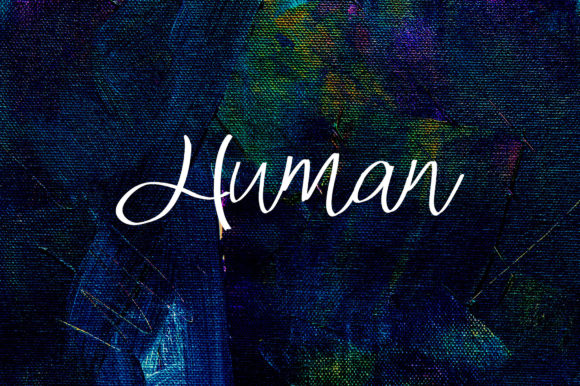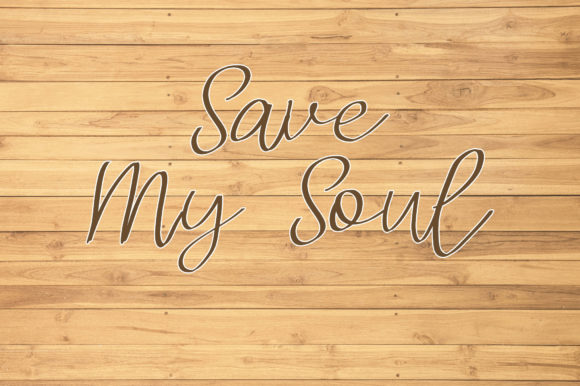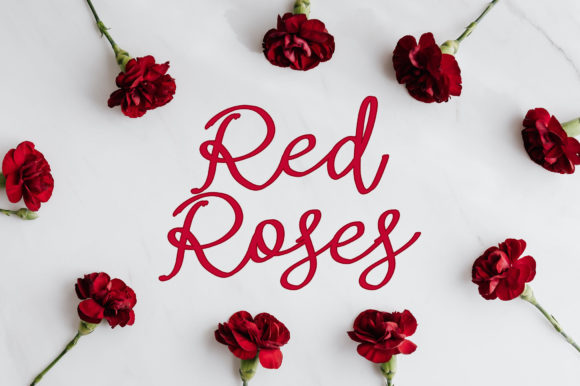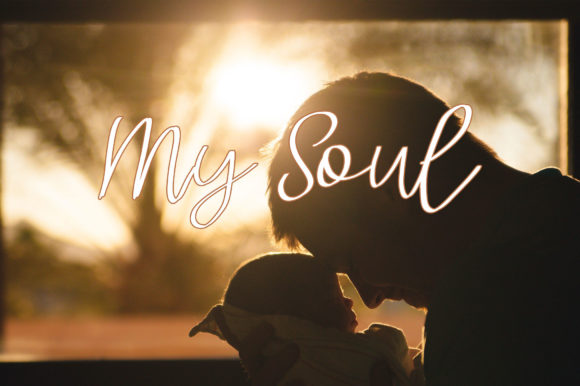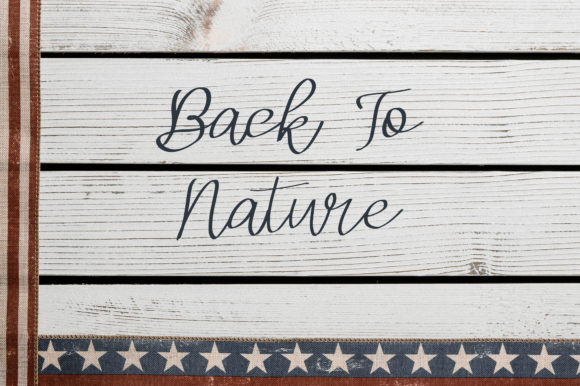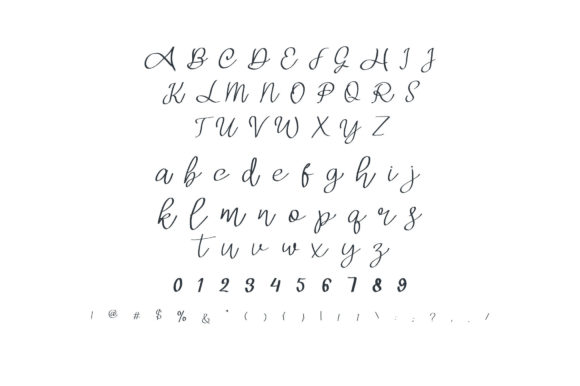
Daddy Font: The Sweet and Whimsical Script Font for Your Creative Projects
Are you a designer or crafter looking for a font that can add a touch of elegance and playfulness to your creative projects? Look no further than the Daddy Font! This sweet, whimsical, and flowing script font is perfect for creating stunning wedding invitations, beautiful stationery art, eye-catching social media posts, and much more.
What Makes Daddy Font So Special?
Daddy Font is a unique and charming script font that is sure to capture your heart. Its splendid style is characterized by flowing lines, delicate curves, and a touch of whimsy, making it perfect for a wide range of creative projects. Whether you’re designing wedding invitations, creating social media graphics, or crafting beautiful stationery art, Daddy Font is the perfect choice.
Features of Daddy Font
Here are some of the key features that make Daddy Font a must-have for designers and crafters:
- Sweet and Whimsical Style: Daddy Font has a playful and charming style that is sure to add a touch of elegance and sophistication to your creative projects.
- Flowing Lines: The font features flowing lines and delicate curves that give it a sense of movement and fluidity.
- Perfect for Wedding Invitations: Daddy Font is a popular choice for wedding invitations, and for good reason. Its elegant and whimsical style makes it perfect for creating beautiful and memorable wedding stationery.
- Great for Social Media Graphics: The font is also great for creating eye-catching social media graphics, including Facebook posts, Instagram stories, and more.
Uses of Daddy Font
Daddy Font is a versatile font that can be used for a wide range of creative projects, including:
- Wedding Invitations: Create beautiful and memorable wedding invitations that will set the tone for your special day.
- Stationery Art: Use Daddy Font to create stunning stationery art, including greeting cards, thank you cards, and more.
- Social Media Graphics: Create eye-catching social media graphics that will grab the attention of your followers.
- Signs and Banners: Use Daddy Font to create beautiful signs and banners for special events, including weddings, birthday parties, and more.
Tips for Using Daddy Font
Here are some tips for using Daddy Font in your creative projects:
- Use it with Other Fonts: Daddy Font pairs well with other fonts, including serif and sans serif fonts. Experiment with different font combinations to find the perfect look for your project.
- Experiment with Colors: Daddy Font looks great in a variety of colors, including pastel colors, bold colors, and metallic colors. Experiment with different colors to find the perfect look for your project.
- Use it for Headers and Titles: Daddy Font is perfect for headers and titles, where its elegant and whimsical style can really shine.
In conclusion, Daddy Font is a sweet, whimsical, and flowing script font that is perfect for designers and crafters looking to add a touch of elegance and playfulness to their creative projects. With its splendid style, flowing lines, and delicate curves, Daddy Font is sure to capture your heart. Whether you’re designing wedding invitations, creating social media graphics, or crafting beautiful stationery art, Daddy Font is the perfect choice.